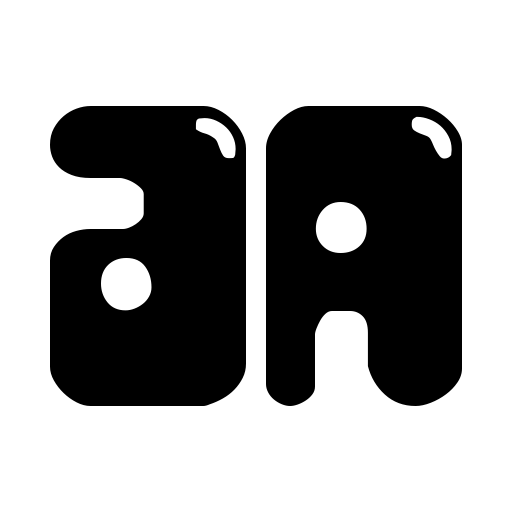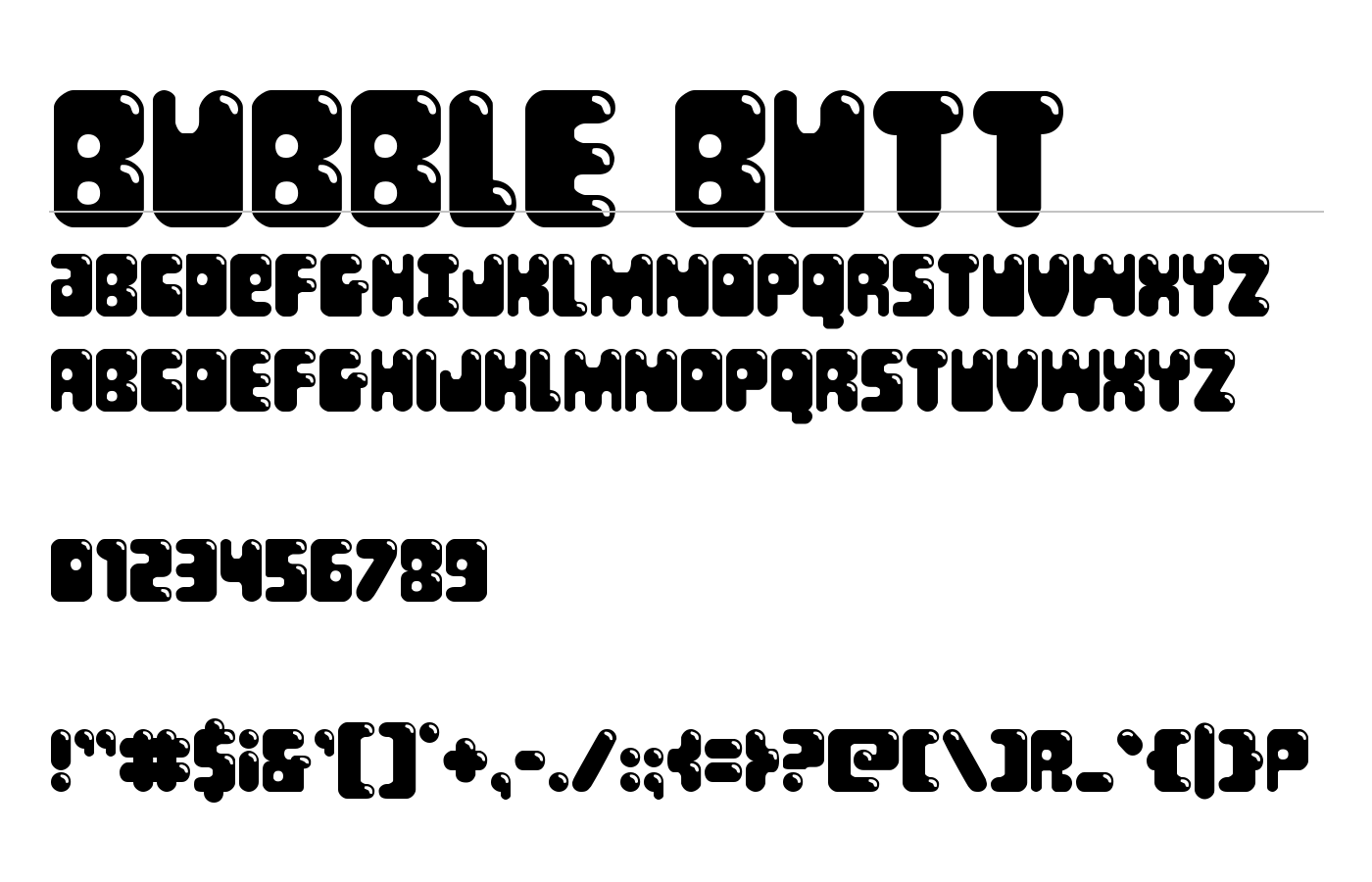
Bubble Butt is a bold, playful display sans serif font with thick, rounded letterforms that evoke a bubbly, fun vibe. Its heavyweight, chunky shapes feature soft edges and whimsical highlights that make it perfect for eye-catching headlines, children's designs, and casual branding. This font works well where a joyful, informal tone is desired, adding personality and charm to posters, party invitations, and youthful packaging.
Bubble Butt Font